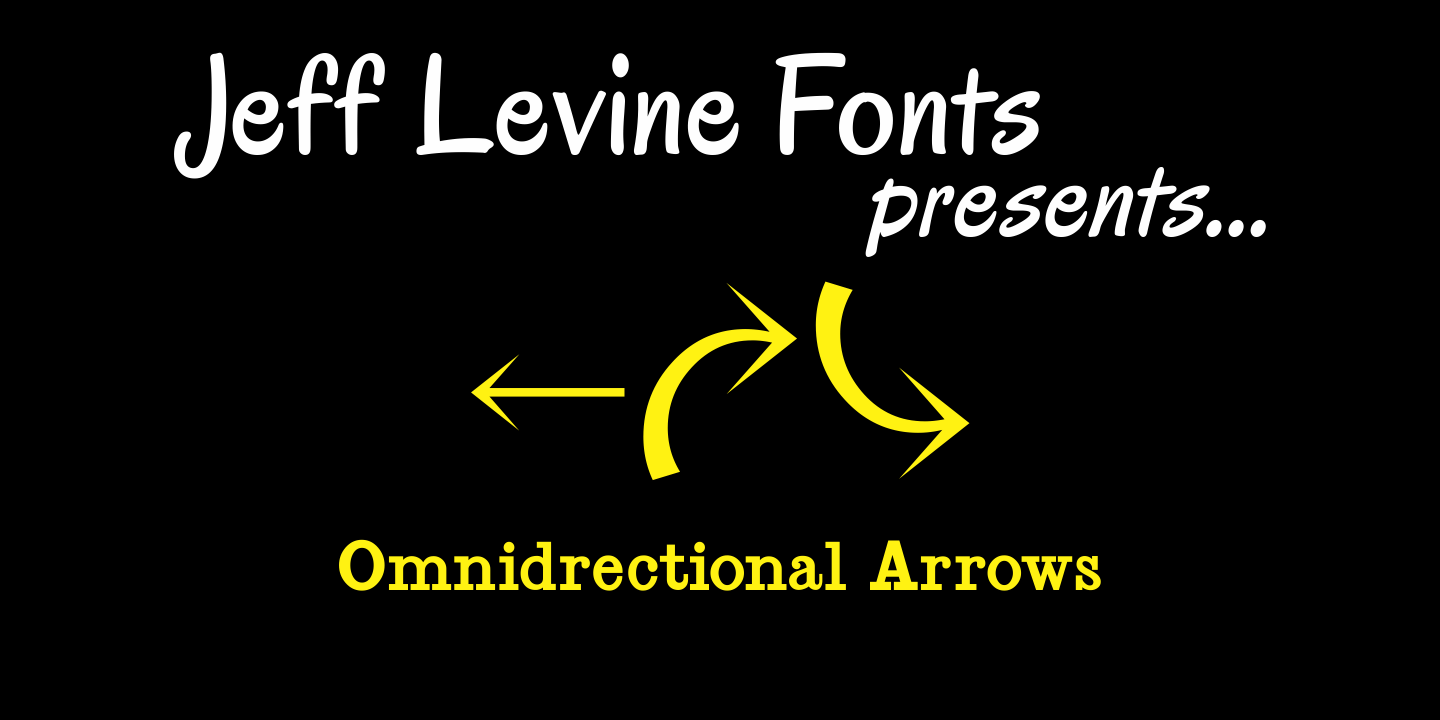
Omnidirectional Arrows
Omnidirectional Arrows JNL is a series of arrow dingbats in different shapes and directions in both solid and outlined drop shadow versions from Jeff Levine.